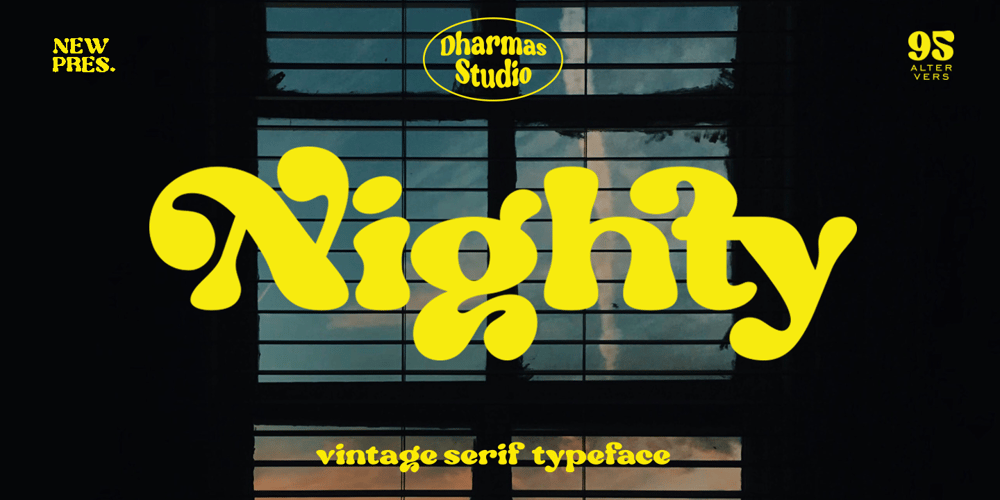
Nighty
Nighty font
Nighty Font Family was designed by Ahmad Jamaludin and published by Ahmad Jamaludin. Nighty contains 1 styles and family package options. Inspired by vintage magazine around 70s, so this font born for all of you, Nighty!Nighty is a display typeface that says we’re here to nostalgia! It brings back the 70s vibes with groovy, retro and unique typefaceThis font fits perfectly into those nostalgic moodboards and vintage logos. It come with 95 unique alternate and ligature that to give your any project to a unique vintage look,What’s you get? Has 95 alternate and ligatures Unique letterforms Multilingual Works on PC & Mac Simple Installations Accessible in the Adobe Illustrator, Adobe Photoshop, Microsoft Word even work on Canva PUA Encoded Characters Fully accessible without additional design software. Drop any message if you any question, thanksDharmas Studio